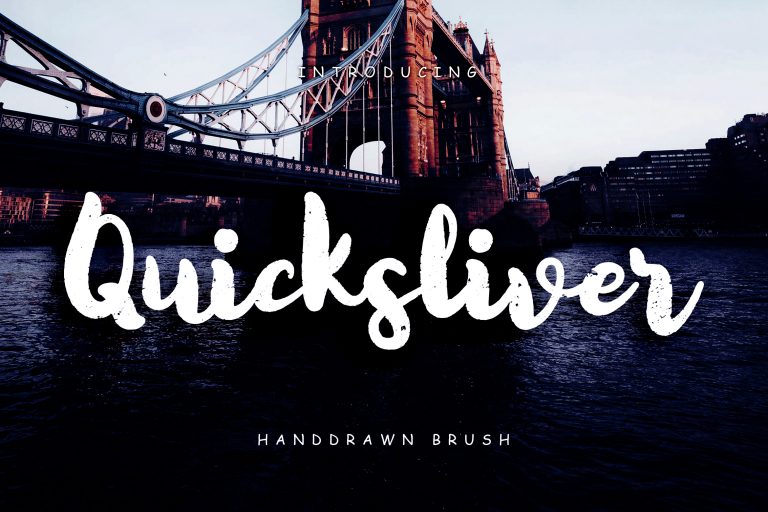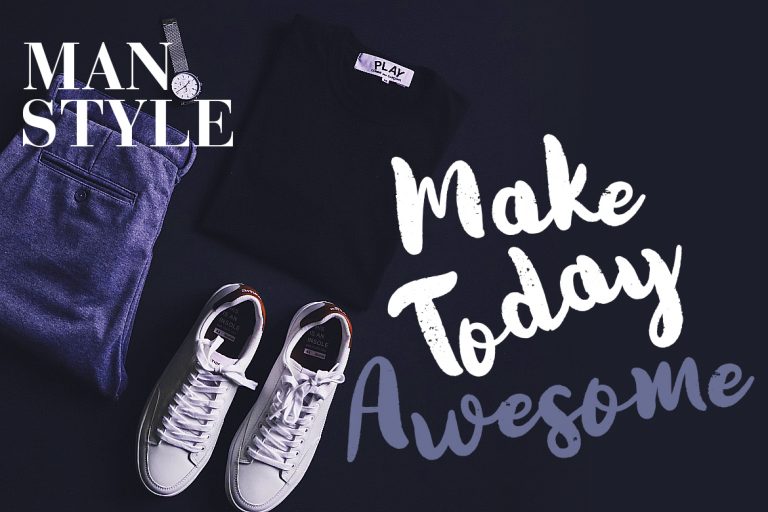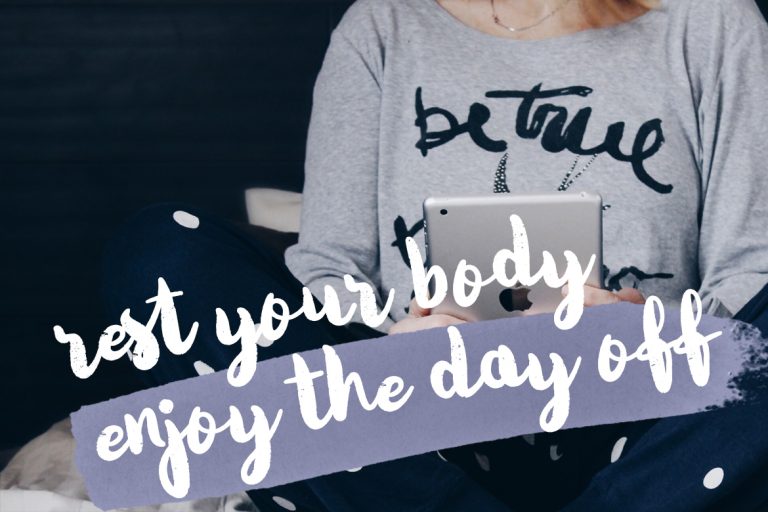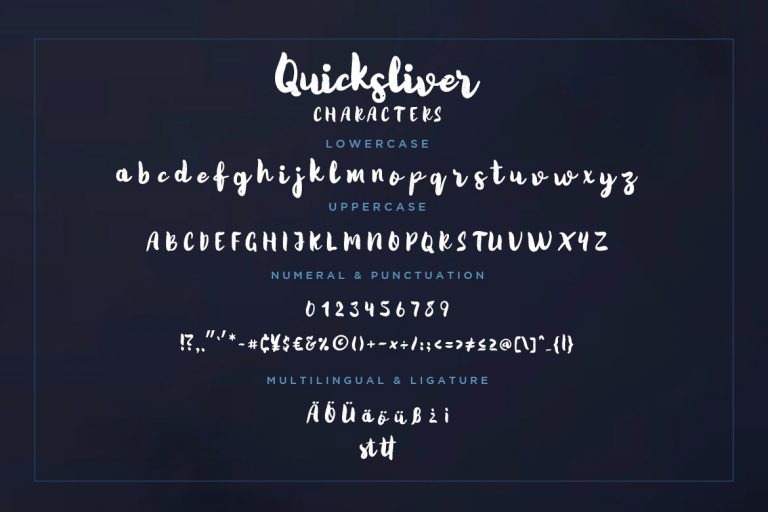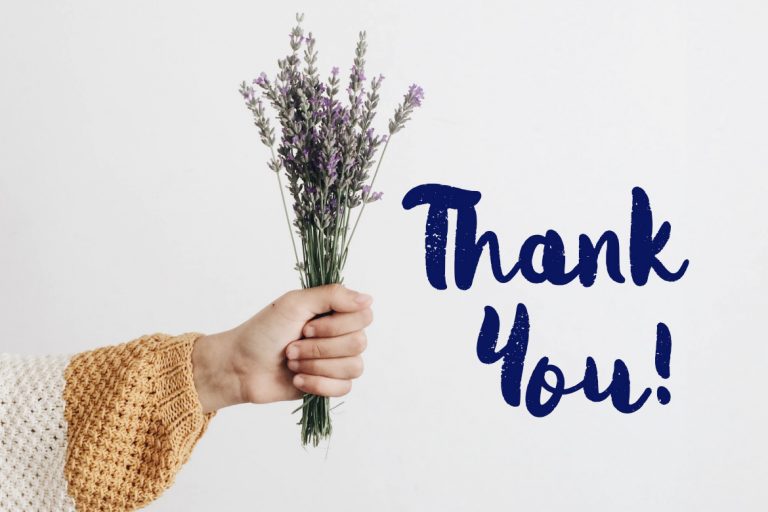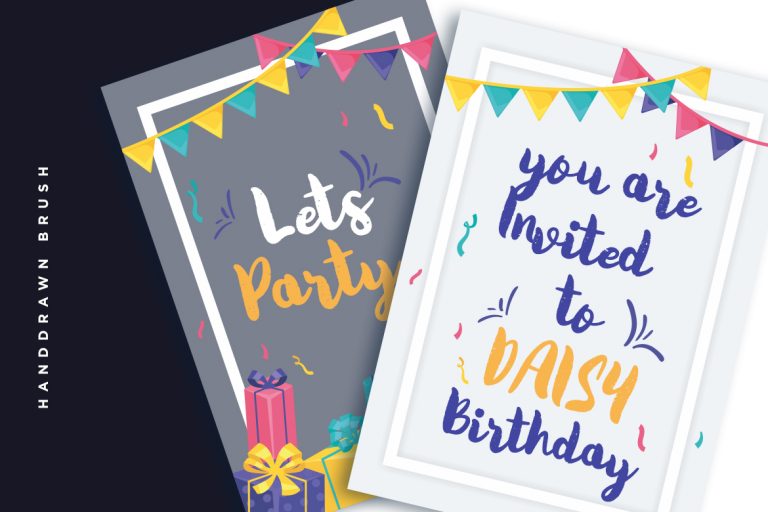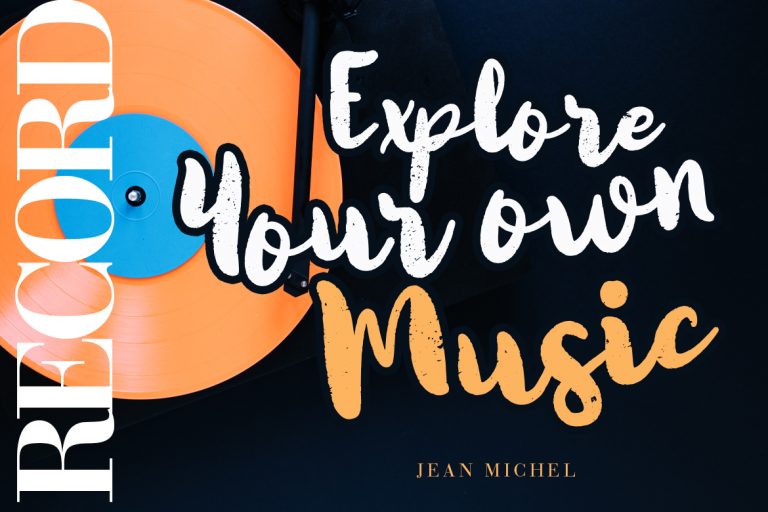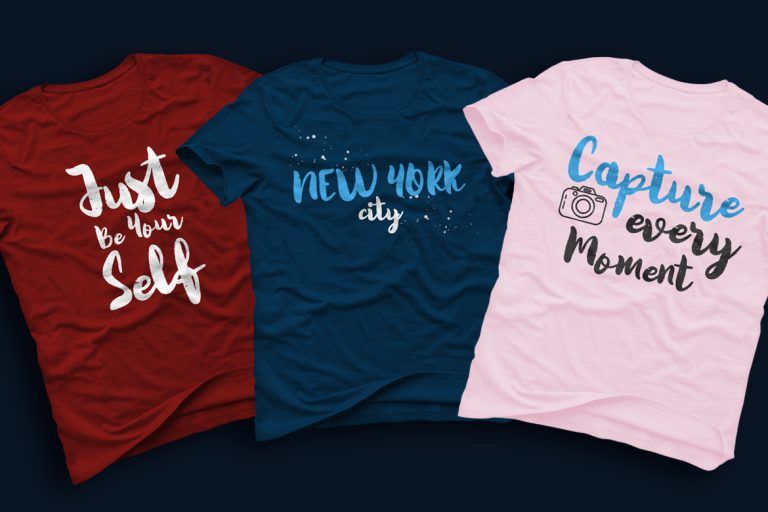
Quicksliver is hand-drawn brush font looks fun and strong bold style.
Quicksliver is perfect for branding projects, logo, wedding designs, social media posts, advertisements, product packaging, product designs, label, photography, watermark, invitation, stationery and any projects that need handwriting taste.
- Fonts include multilingual support for; ä ö ü Ä Ö Ü ß ¿ ¡
Quicksliver Handdrawn Brush Font